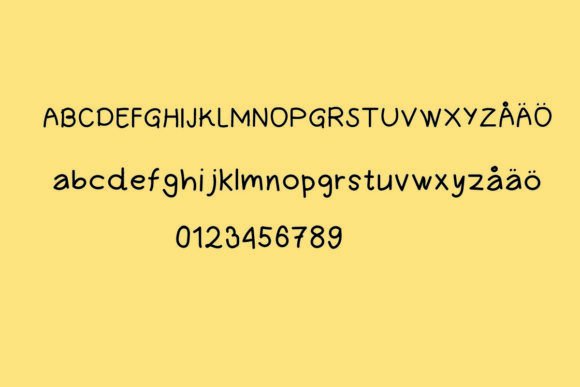
Ding Dong Font: Elevate Your Designs with a Stylish Handwritten Touch
In the world of typography, fonts play a crucial role in conveying the tone and personality of a design. For those seeking a unique and stylish handwritten font, Ding Dong is an excellent choice. This versatile font not only adds a personal touch to your text but also includes special characters such as å, ä, and ö, making it suitable for various languages and creative designs.
The Charm of Ding Dong Font
Ding Dong font is a beautifully crafted handwritten font that exudes a sense of elegance and sophistication. Its stylish and fluid strokes make it perfect for a wide range of design applications, from digital projects to print materials. The font’s unique character set, which includes the special characters å, ä, and ö, allows designers to create multilingual designs with ease.
Key Features of Ding Dong Font
- Stylish Handwritten Design: Ding Dong font boasts a stylish handwritten design that adds a personal touch to your text.
- Special Characters: The font includes special characters such as å, ä, and ö, making it versatile for various languages and creative designs.
- Multilingual Support: With its extended character set, Ding Dong font supports multiple languages, allowing designers to create designs for diverse audiences.
Uses of Ding Dong Font
Ding Dong font is an excellent choice for a wide range of design applications, including:
- Digital Projects: Use Ding Dong font to add a personal touch to your website, social media graphics, or digital advertisements.
- Print Materials: The font is perfect for print materials such as brochures, flyers, posters, and business cards.
- Branding and Identity: Ding Dong font can be used to create unique and memorable brand identities, including logos and letterheads.
- Crafting and DIY Projects: Crafters and DIY enthusiasts can use Ding Dong font to add a personal touch to their projects, such as handmade cards, scrapbooking, and journaling.
Tips for Using Ding Dong Font
To get the most out of Ding Dong font, consider the following tips:
- Pair with Other Fonts: Experiment with pairing Ding Dong font with other fonts to create visually appealing combinations.
- Use in Headlines and Titles: Use Ding Dong font in headlines and titles to add a touch of elegance and sophistication.
| Font Name | Ding Dong Font |
| Author | elimoDesign |
In conclusion, Ding Dong font is a stylish and versatile handwritten font that adds a unique flair to your text. With its special characters and multilingual support, it’s perfect for designers and crafters seeking to create stunning designs for various languages and creative projects. Whether you’re working on a digital project or a print material, Ding Dong font is an excellent choice for adding a personal touch to your designs.